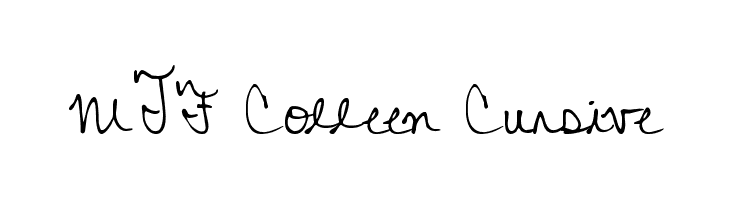
A playful and flowing cursive font with a handwritten appearance.
A playful, casual handwritten font with fluid strokes.
A playful, hand-drawn font with rounded, whimsical characters.
A playful, handwritten font with smooth, flowing lines and a whimsical style.
A playful, hand-drawn font with thin, elongated characters and a whimsical style.
A playful, hand-drawn font with a festive and cheerful vibe.
A playful, hand-drawn font with a festive, cheerful vibe.